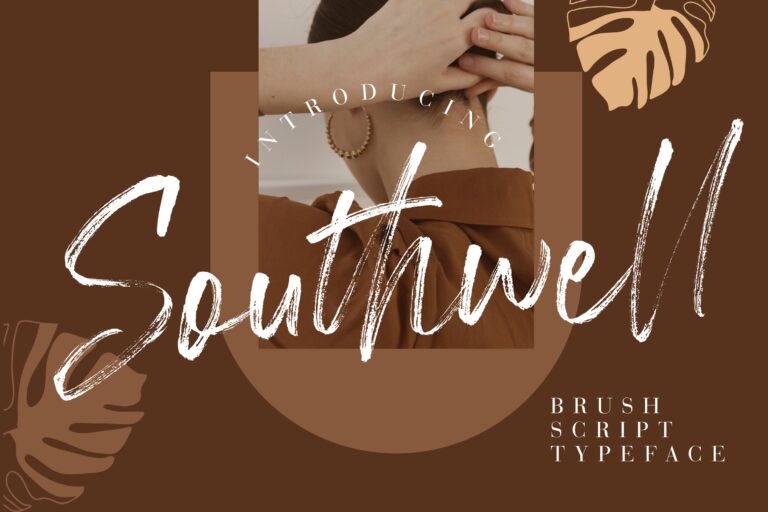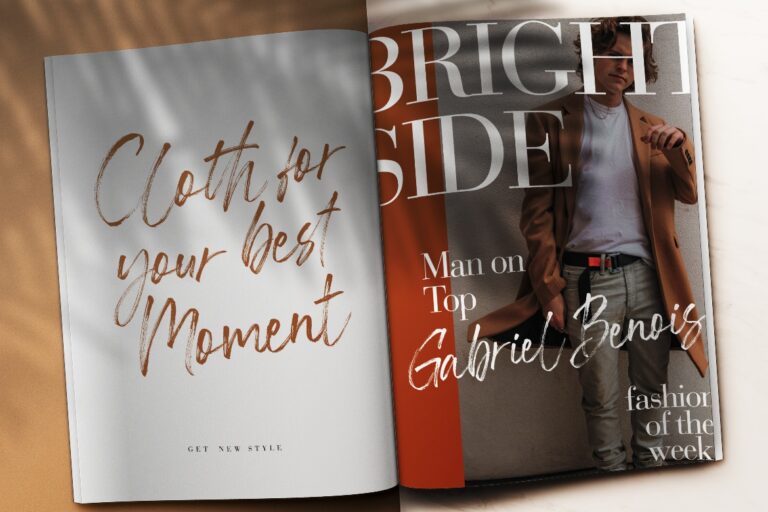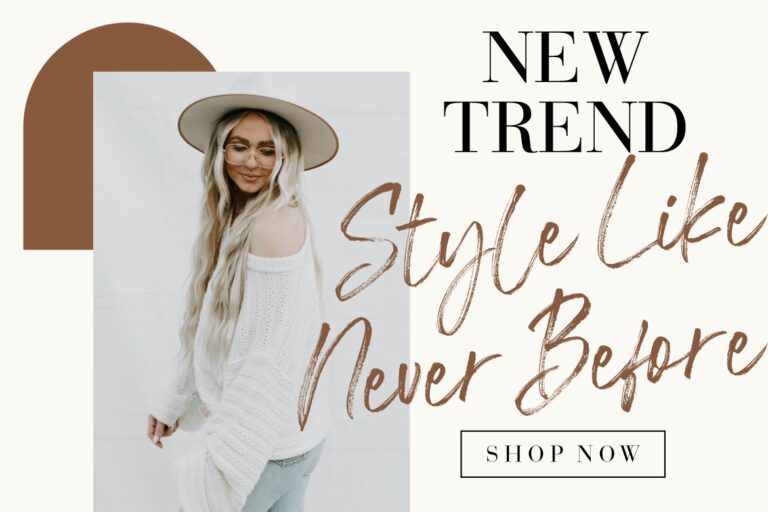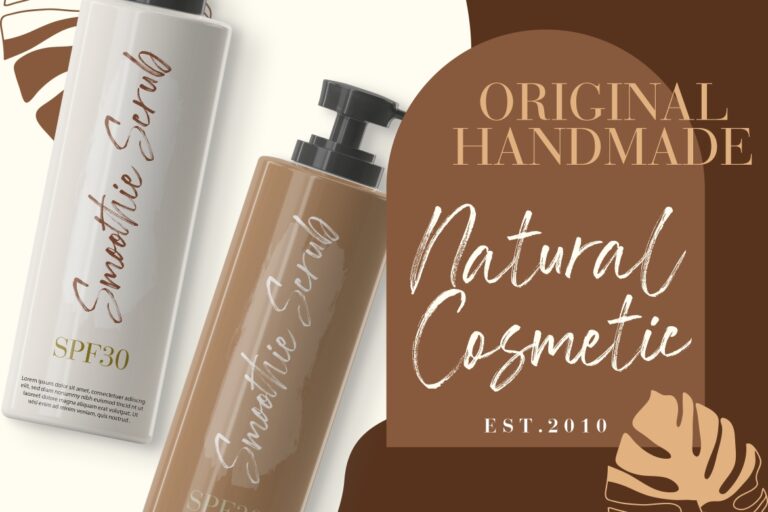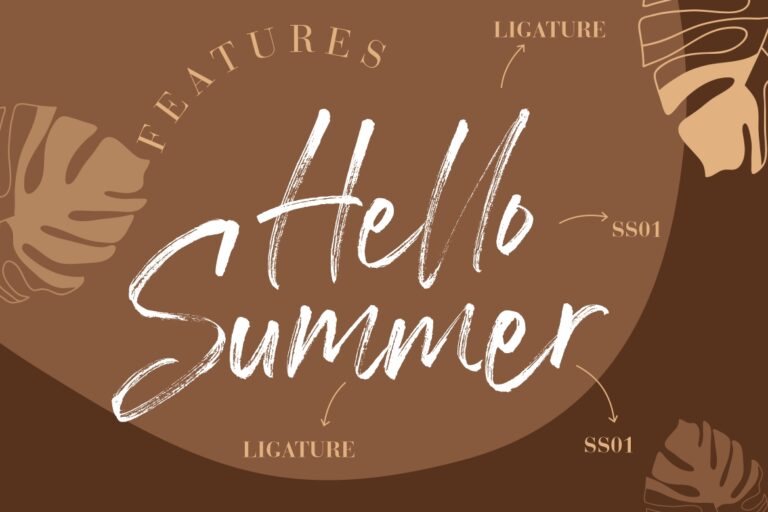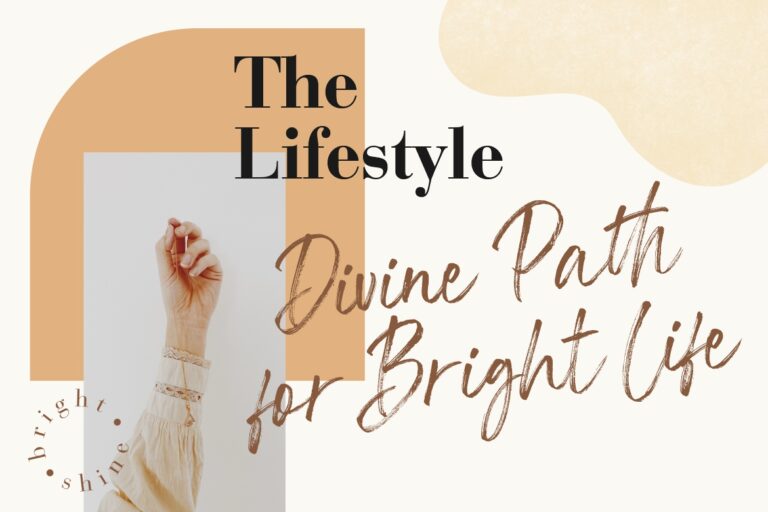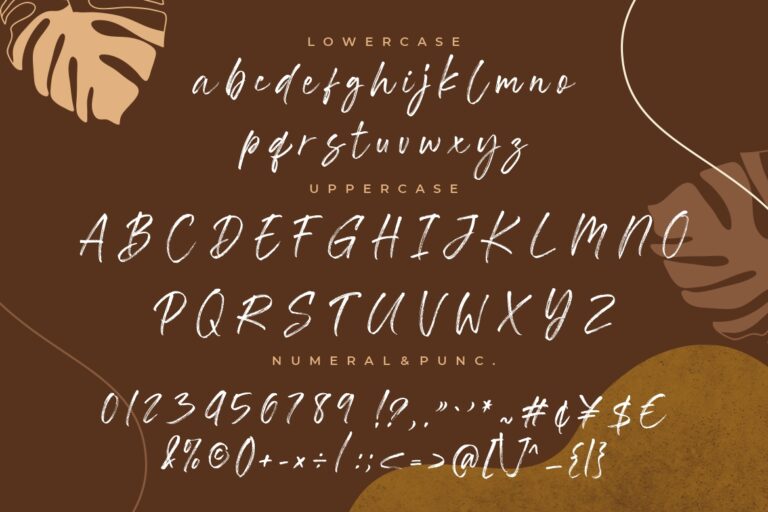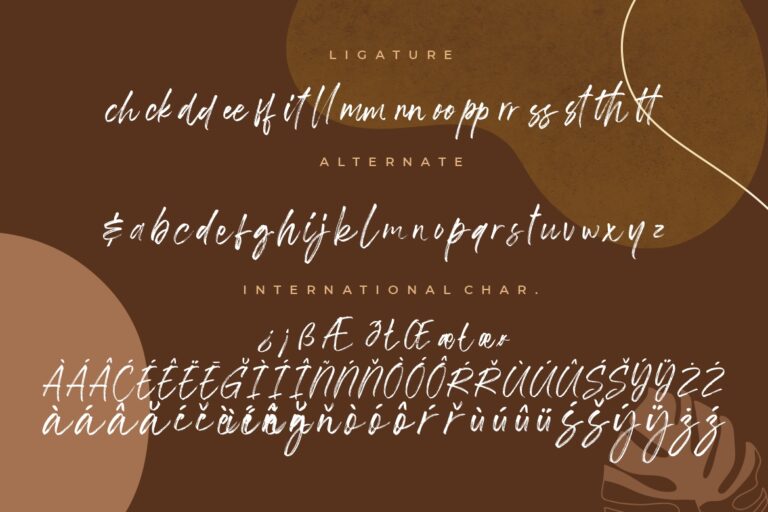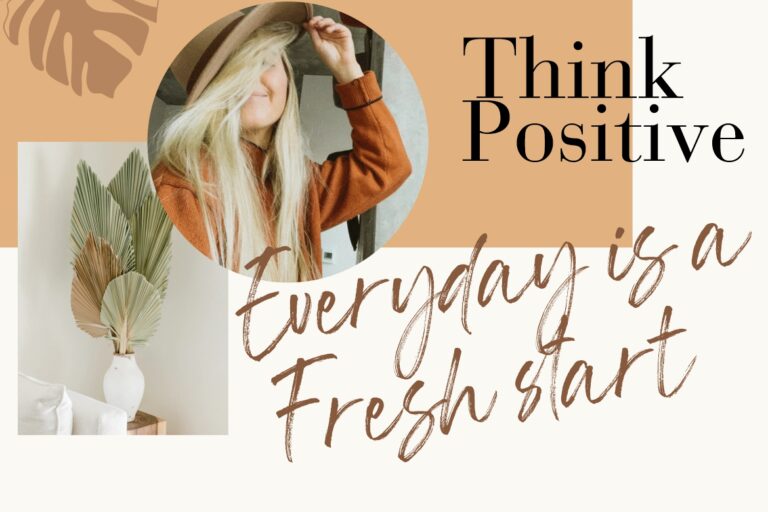
Southwell is brush script font with scratch effect and natural movement.
Southwell is perfect for branding projects, logo, wedding designs, social media posts, advertisements, product packaging, product designs, label, photography, watermark, invitation, stationery and any projects that need handwriting taste.
Southwell Brush Script Font